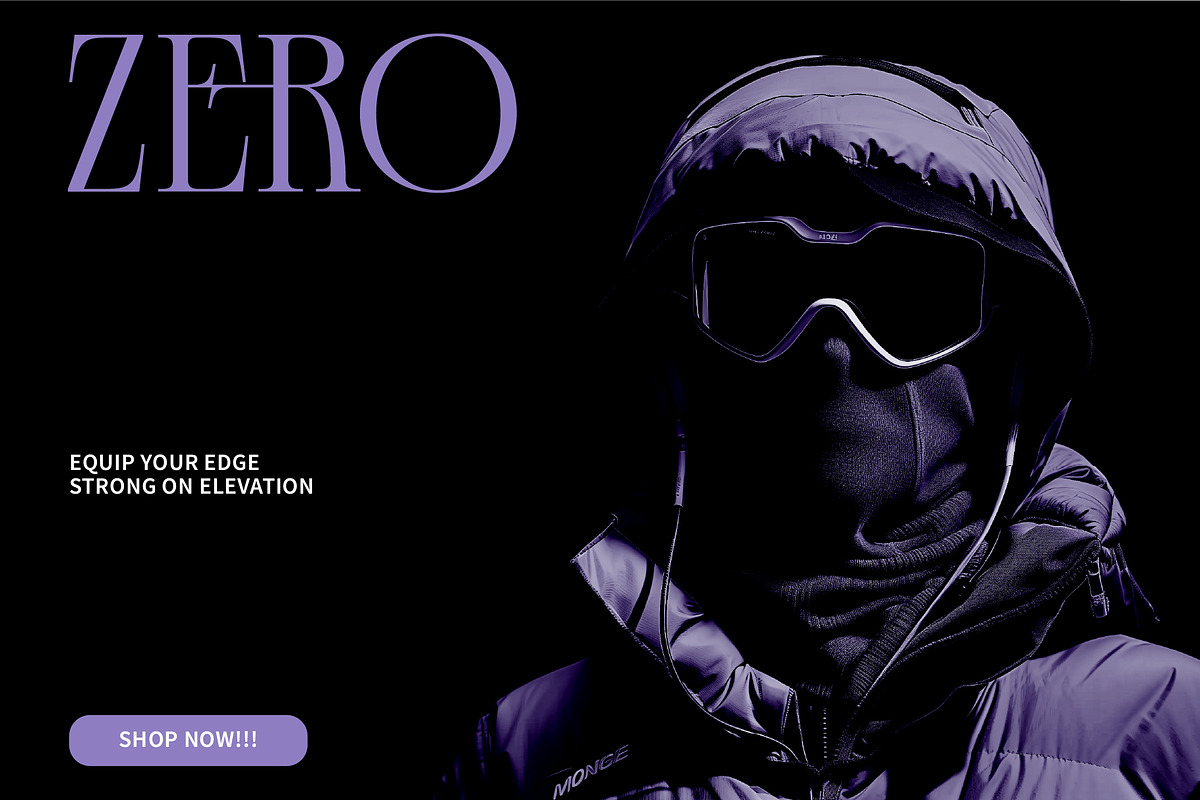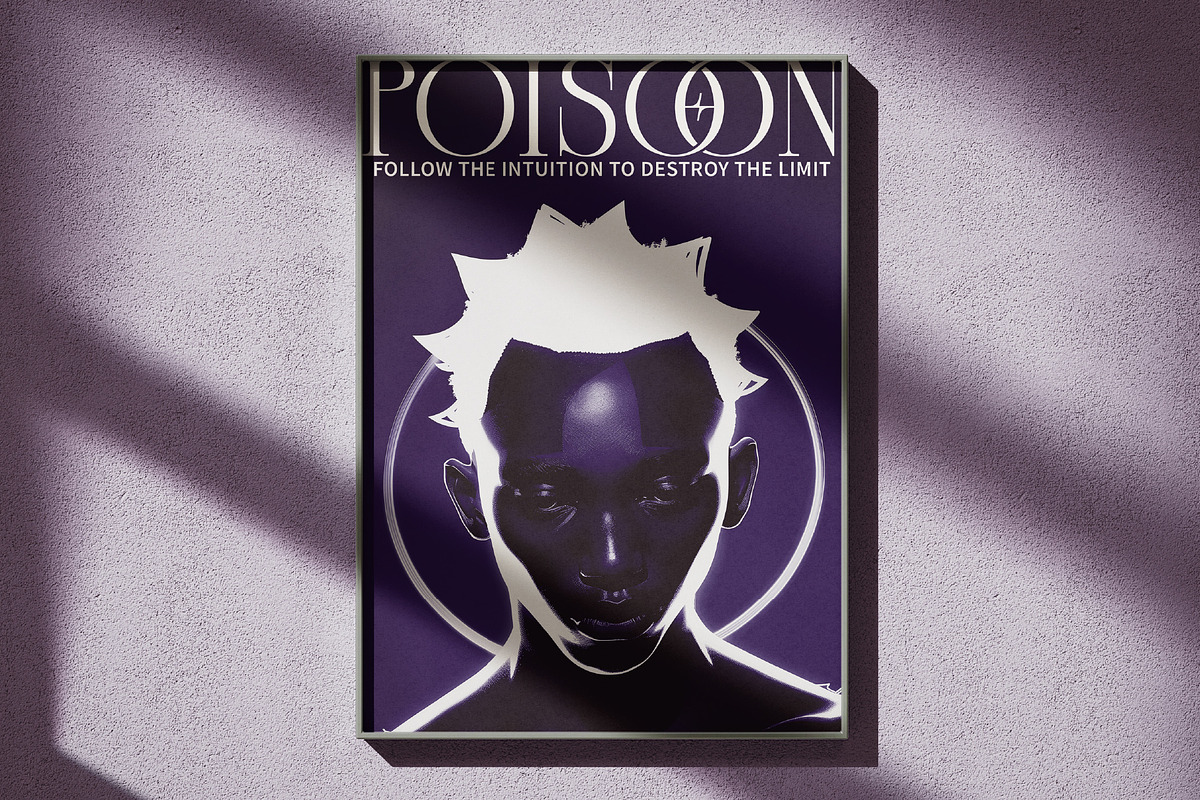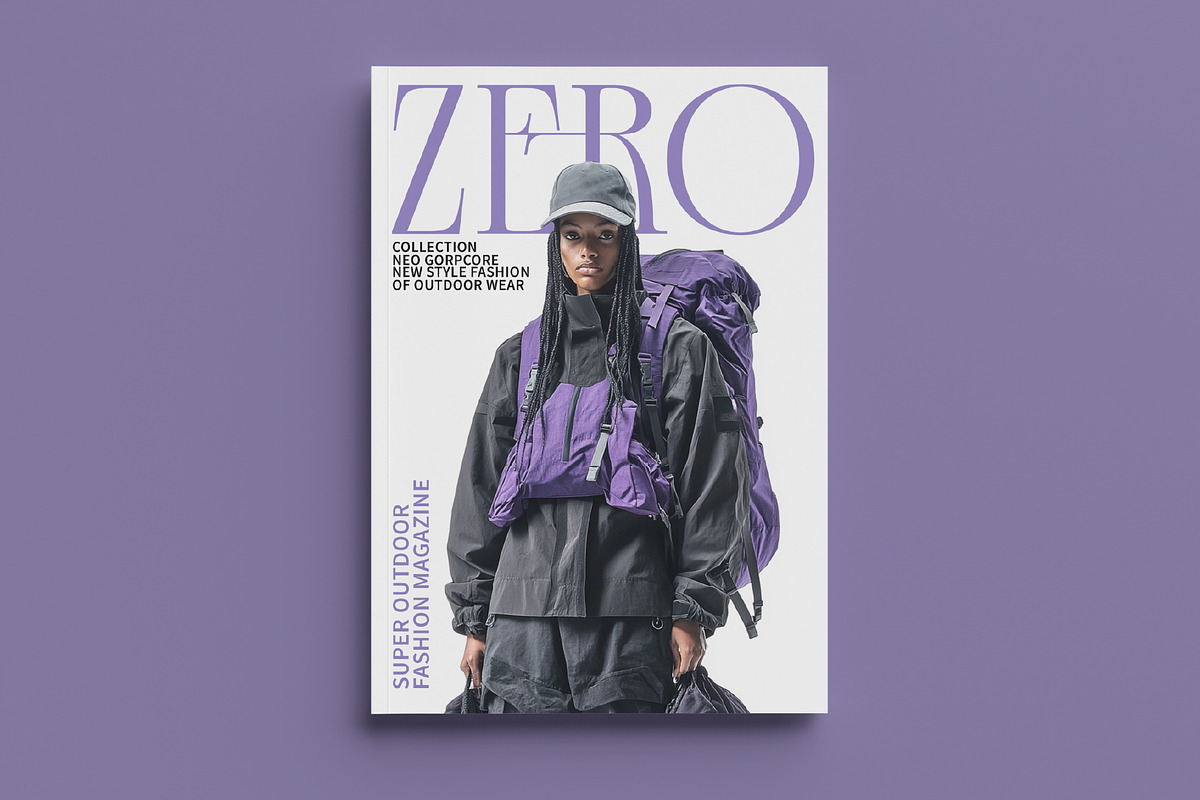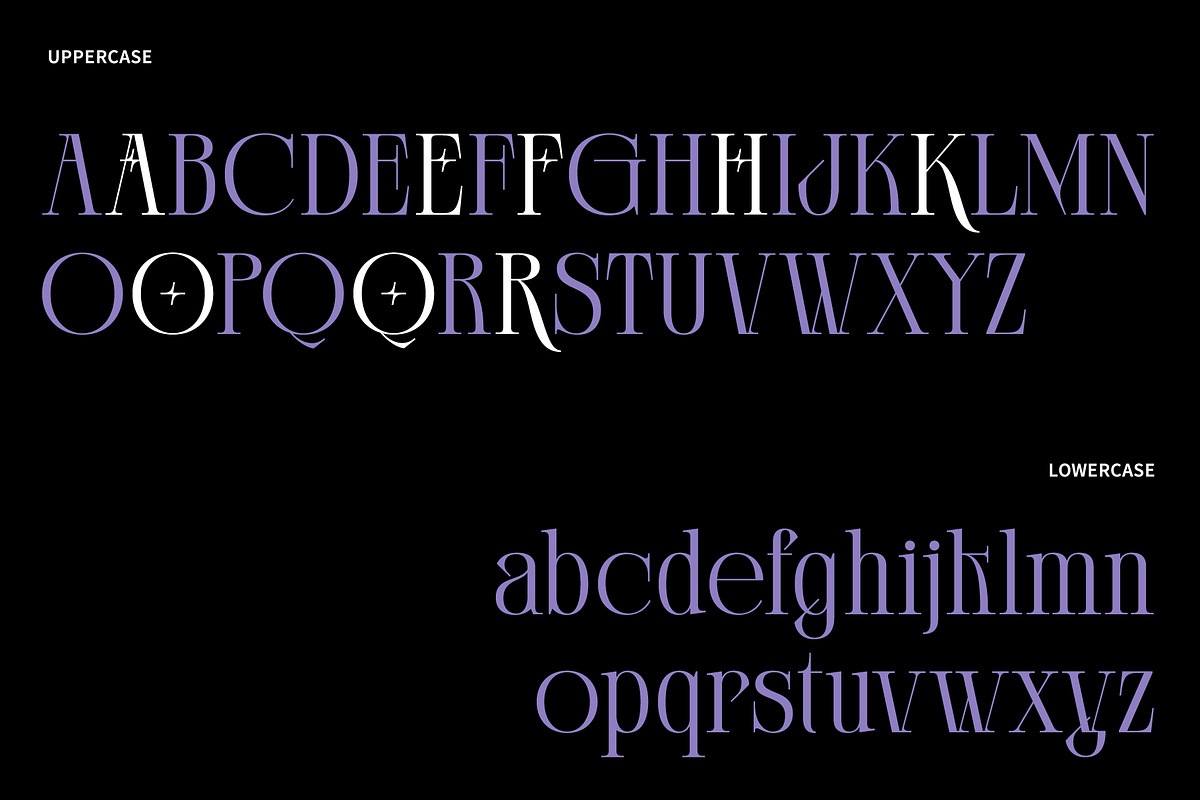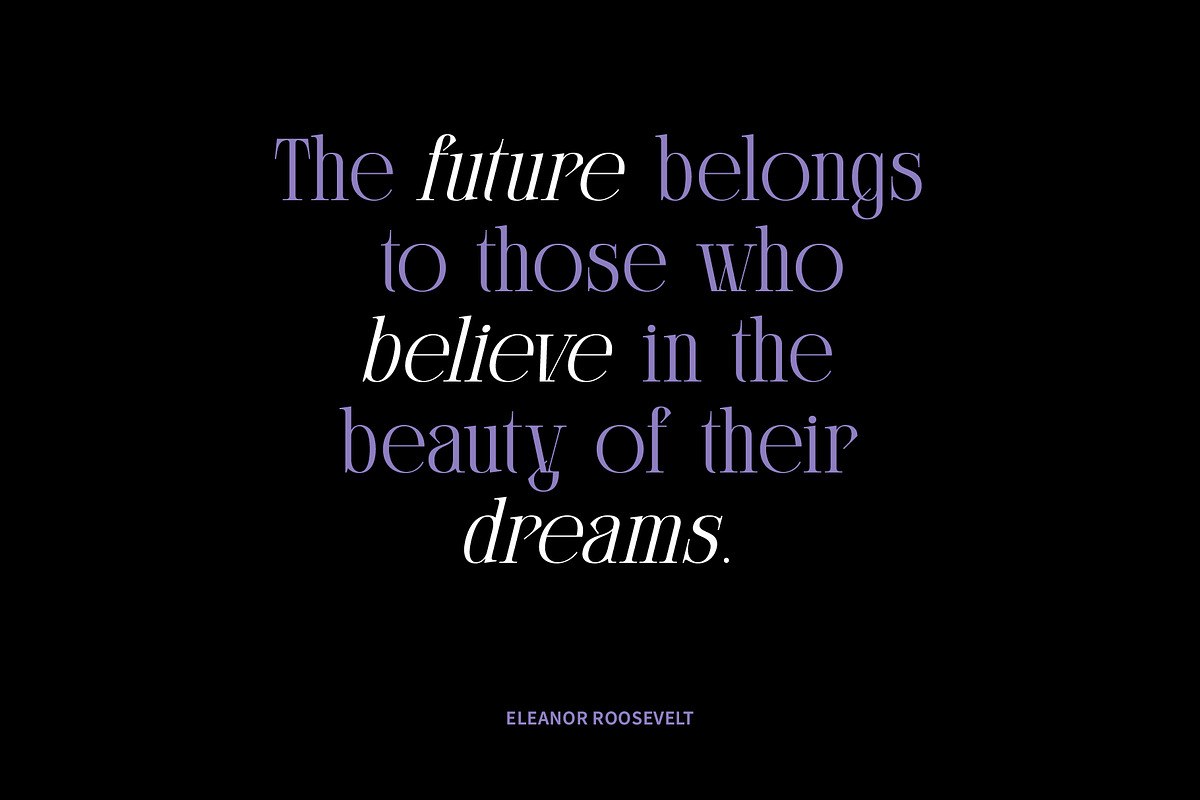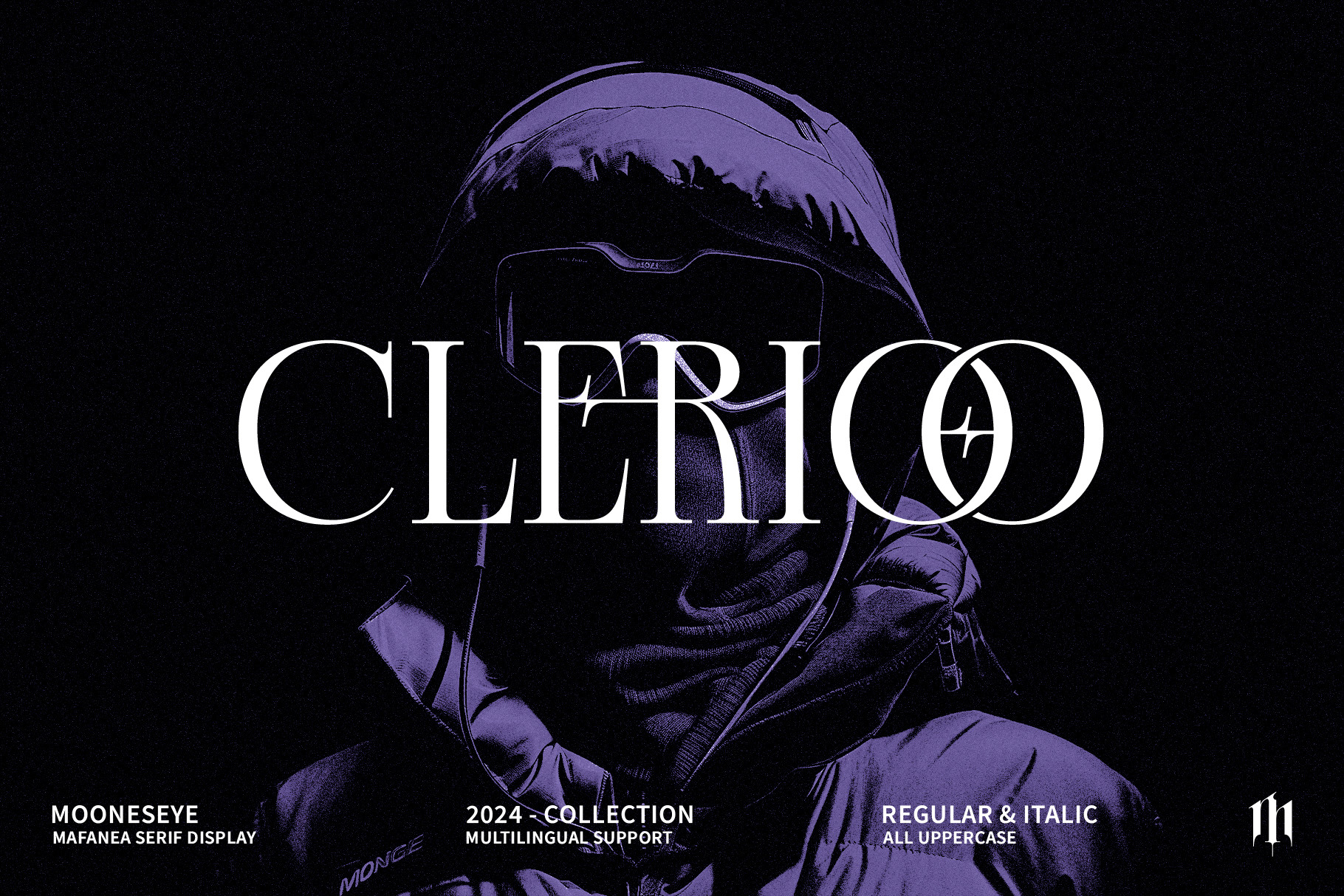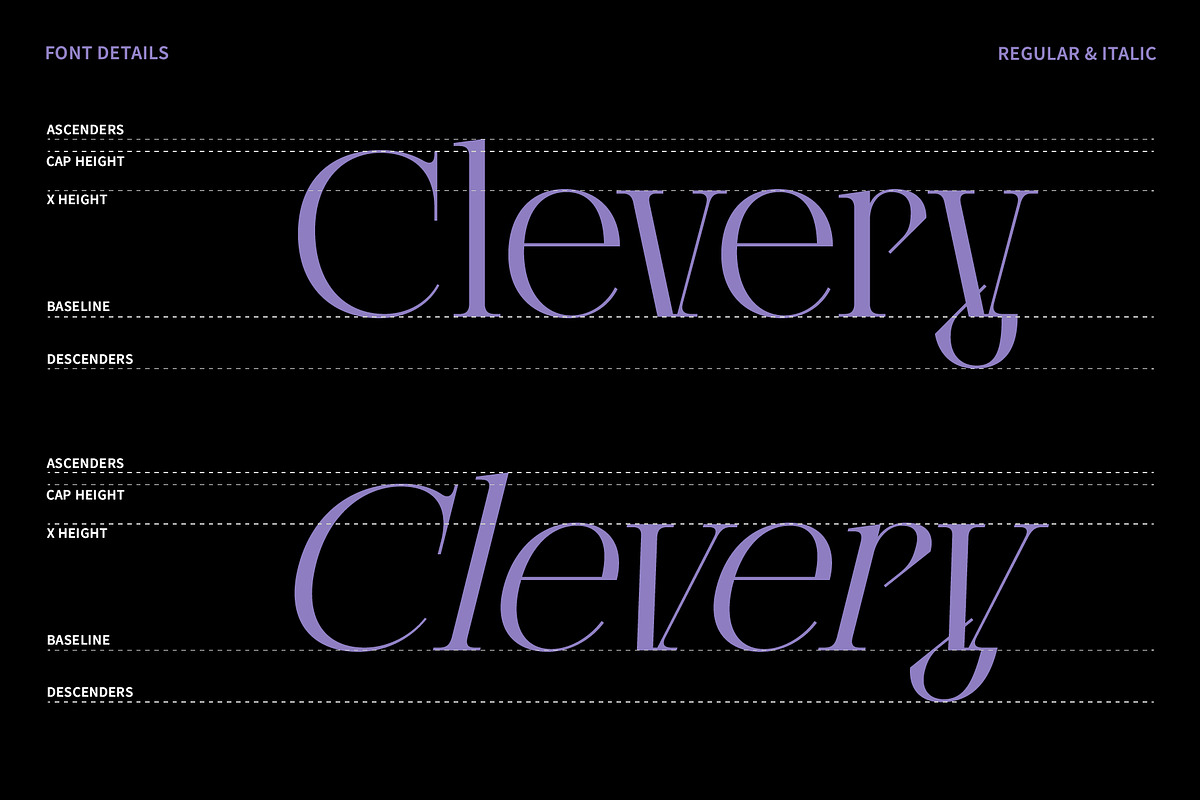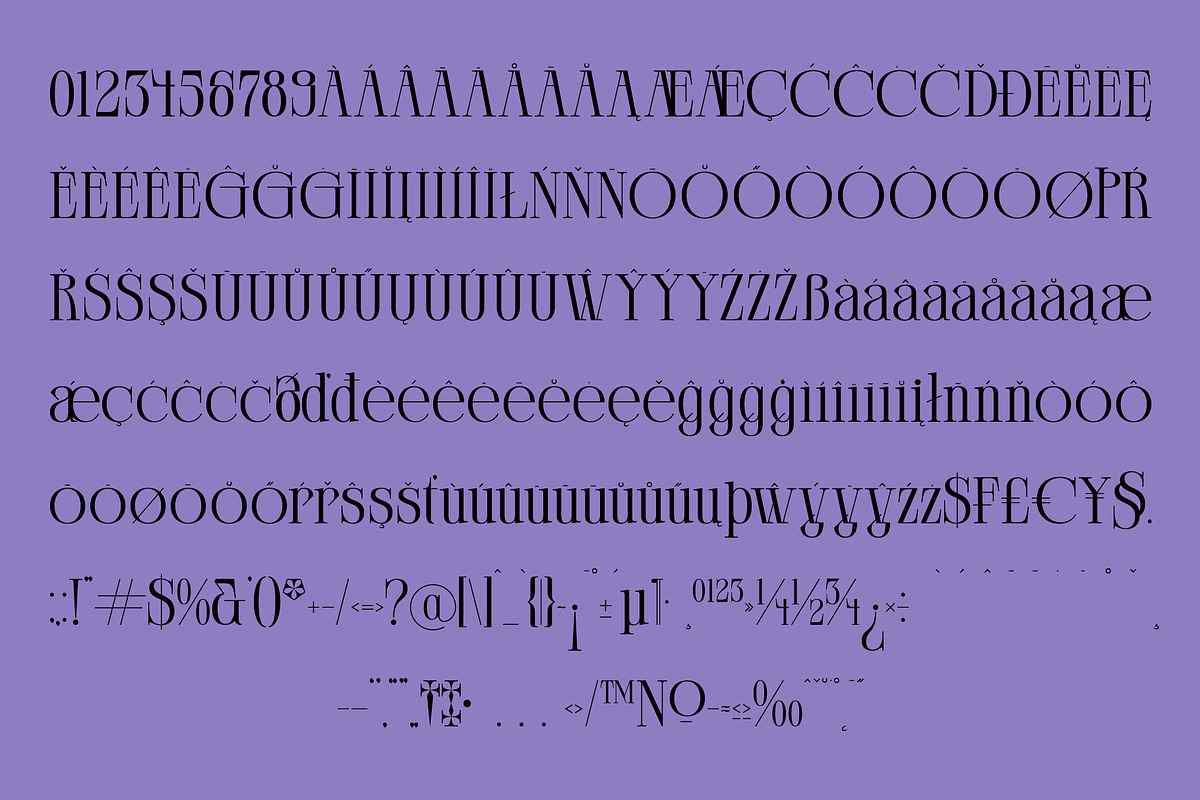
Clerioo – Elegant Serif Display Font
Step into refined elegance with Clerioo, a luxe serif display font crafted to elevate your creative projects with bold grace and typographic flair. With its uniquely shaped terminals, striking alternates, and powerful contrasts, Clerioo embodies a dramatic blend of fashion-forward aesthetics and editorial prestige.
Ideal for branding, magazine layouts, album covers, poster art, and high-end web design—Clerioo makes your words look iconic. From uppercase elegance to stylish italics, this font family is versatile enough to shine in both minimalist and expressive compositions.
Whether you're designing for the runway or revolutionizing your portfolio—Clerioo is your font for standing out with style.